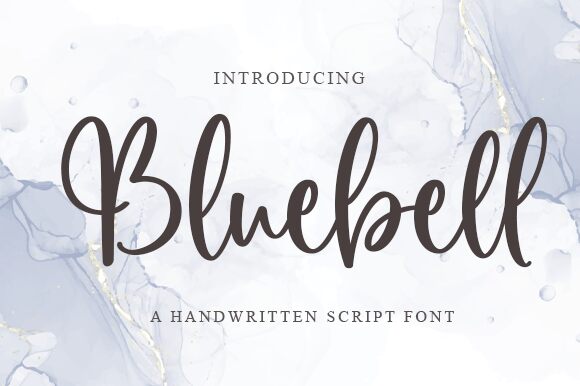
Bluebell
Bluebell, crafted by Graphix Line Studio, is a semi-light calligraphy font that encapsulates the essence of grace and finesse. With its sweeping curves and precise letterforms, Bluebell brings a touch of class to any creative endeavor.
The inclusion of stylish alternates and ligatures allows designers to weave unique typographic tapestries, making it ideal for wedding invitations, branding, or upscale packaging projects. This font's versatility shines in both digital and print formats, ensuring that your message is not only read but felt.
Embrace the charm of Bluebell for a design that speaks volumes with an air of understated luxury.